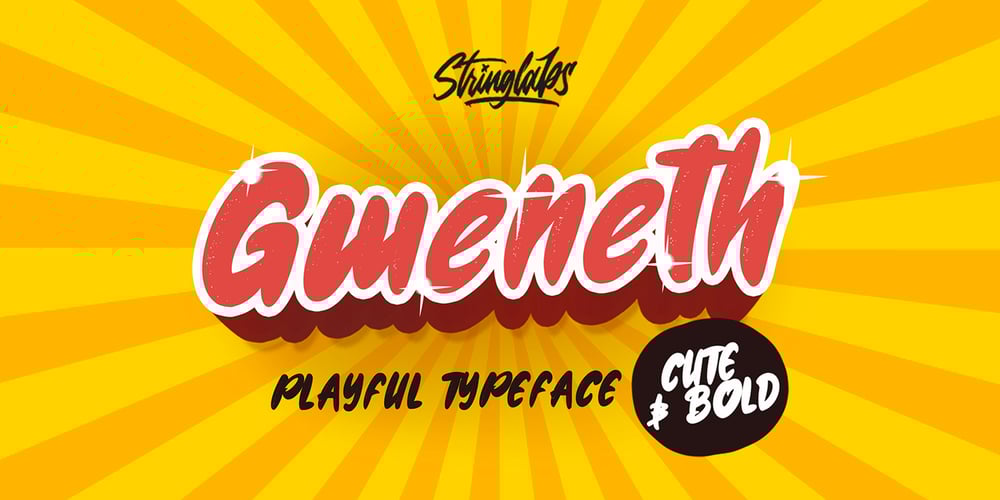
Gweneth embassy Font Family was designed by Virgiawan Listanto and published by Stringlabs Creative Studio. Gweneth embassy contains 1 styles and family package options. Gweneth celebrates all things comics. This gorgeous cartoonish display font will look simply magical in a wide range of design projects. It’s great for comics, cartoons, birthday invitations, and any creative project that needs a fun look! Gweneth is a flowing and elegant handwritten font, created with the help of a brush pen. Get inspired by its unique and beautiful style and add it to your favorite designs!